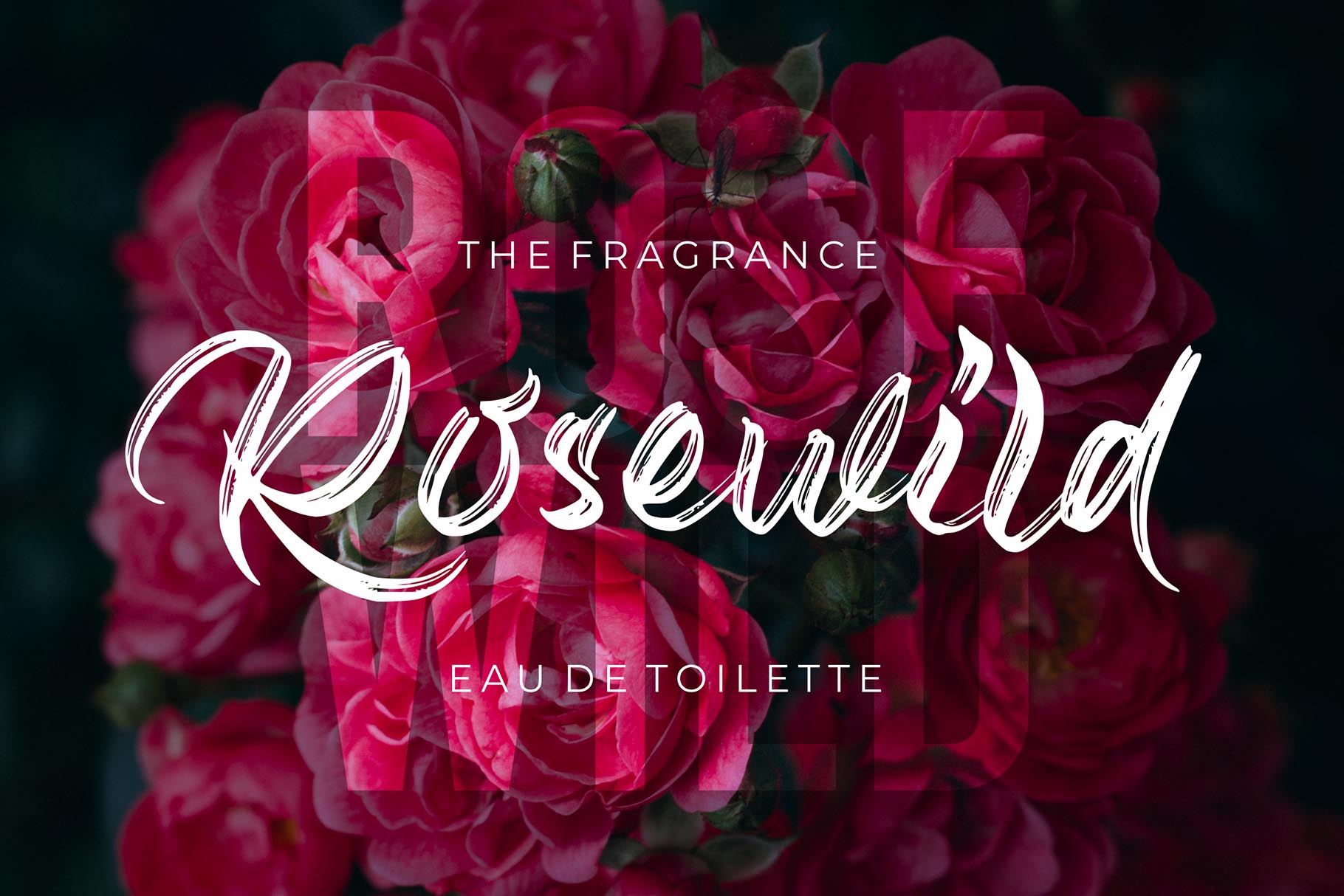
Introducing Biograph!
The Brother Hoops is strong hand-drawn brush font that combines attractive curves with a fresh urban edge; delivering a stylish brush font that is guaranteed to add an eye-catching appeal to your logo designs, brand imagery, handwritten quotes, product packaging, merchandise, social media post, or website font.
- Basic Latin A-Z and a-z
- Numbers
- Symbols
- Ligature and Swash
- Multilanguage Support